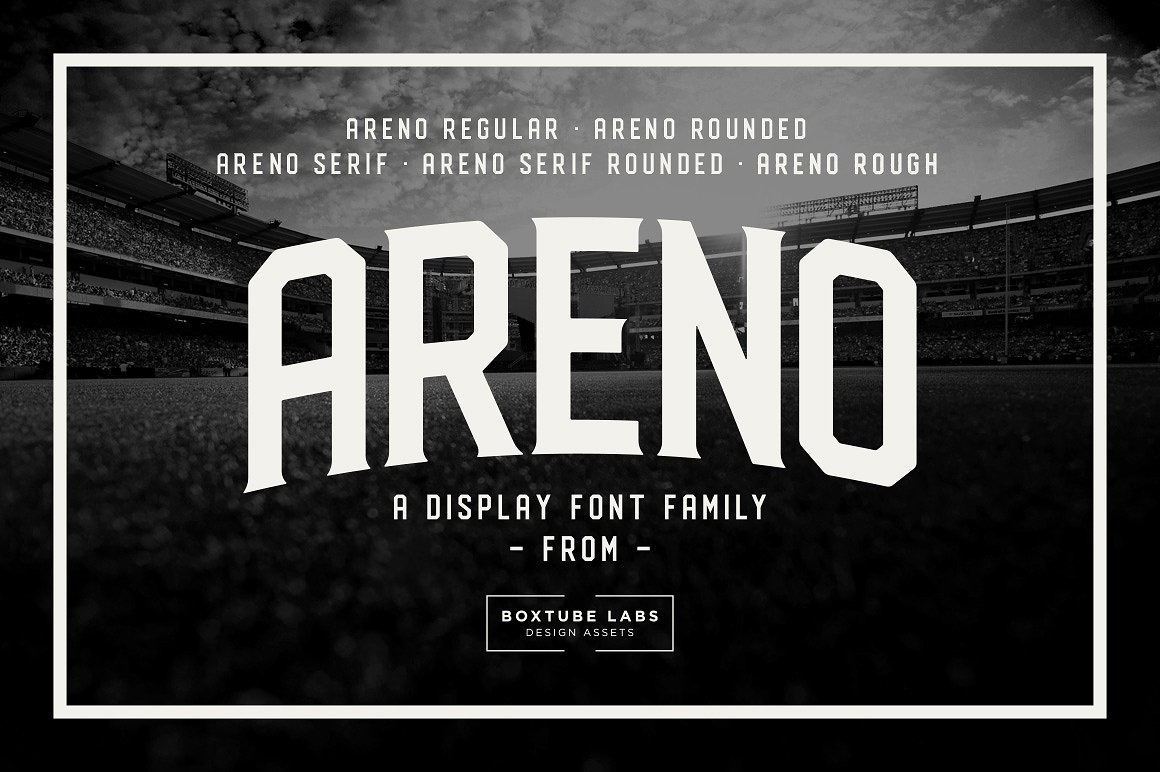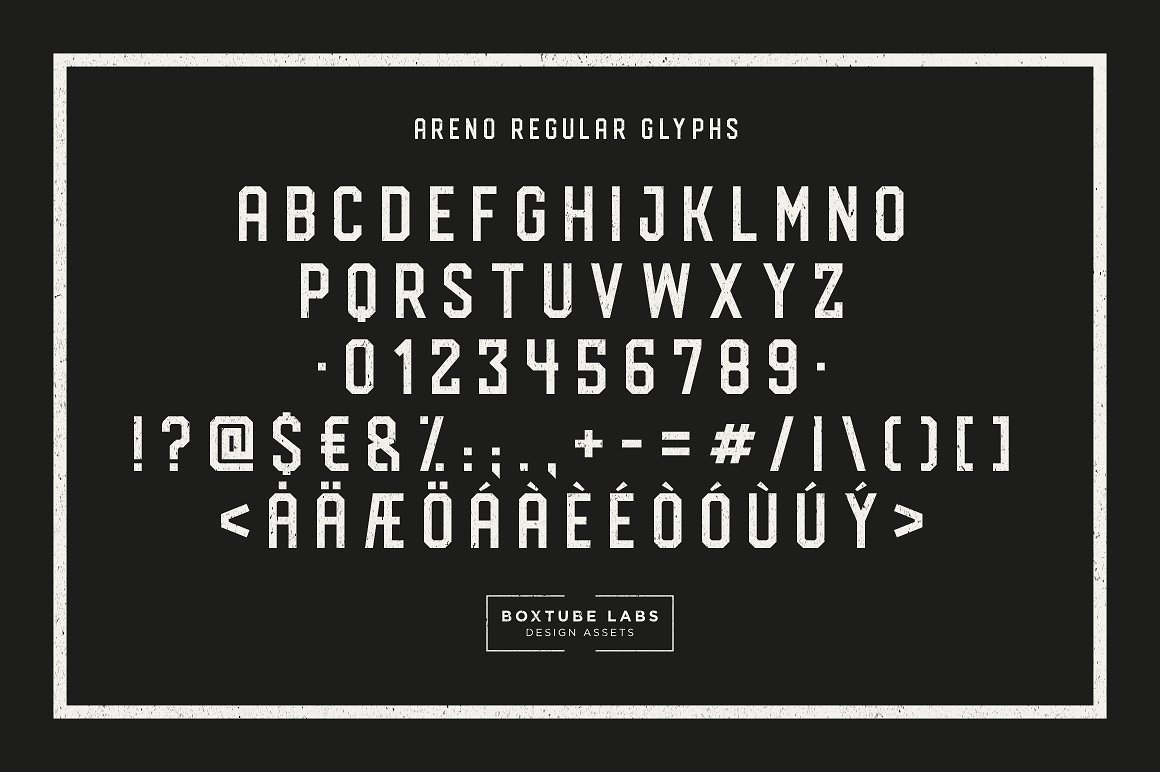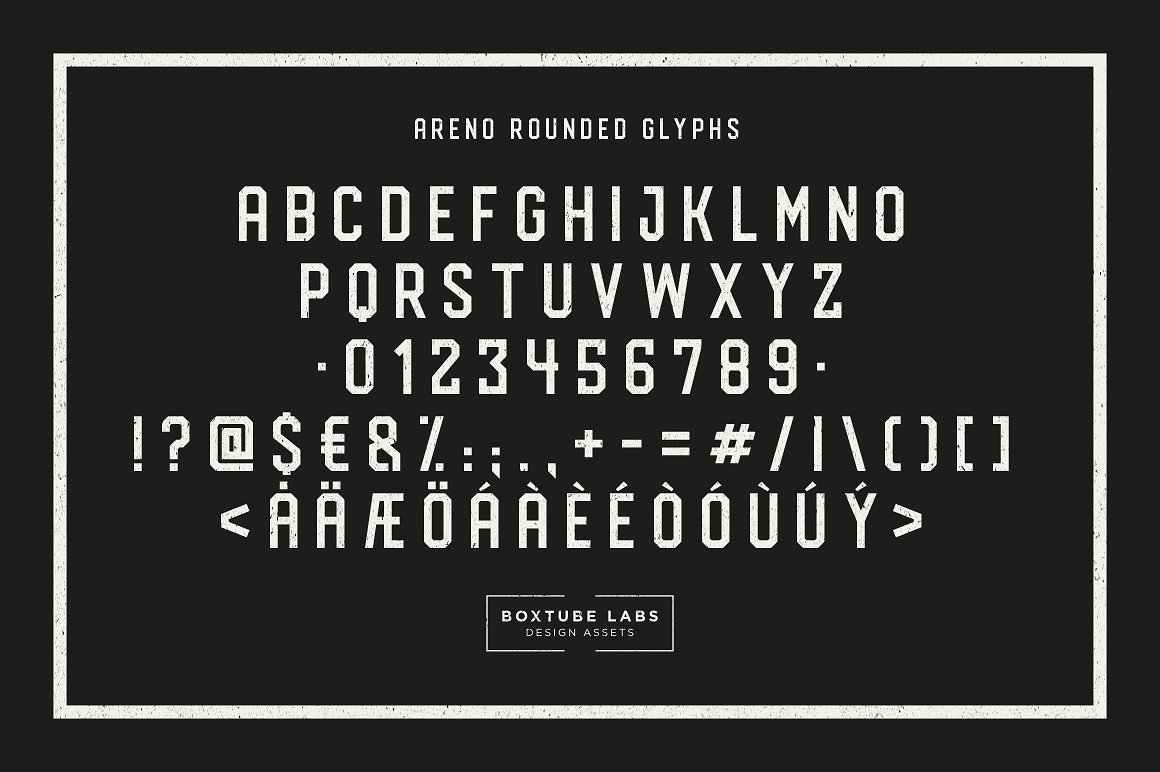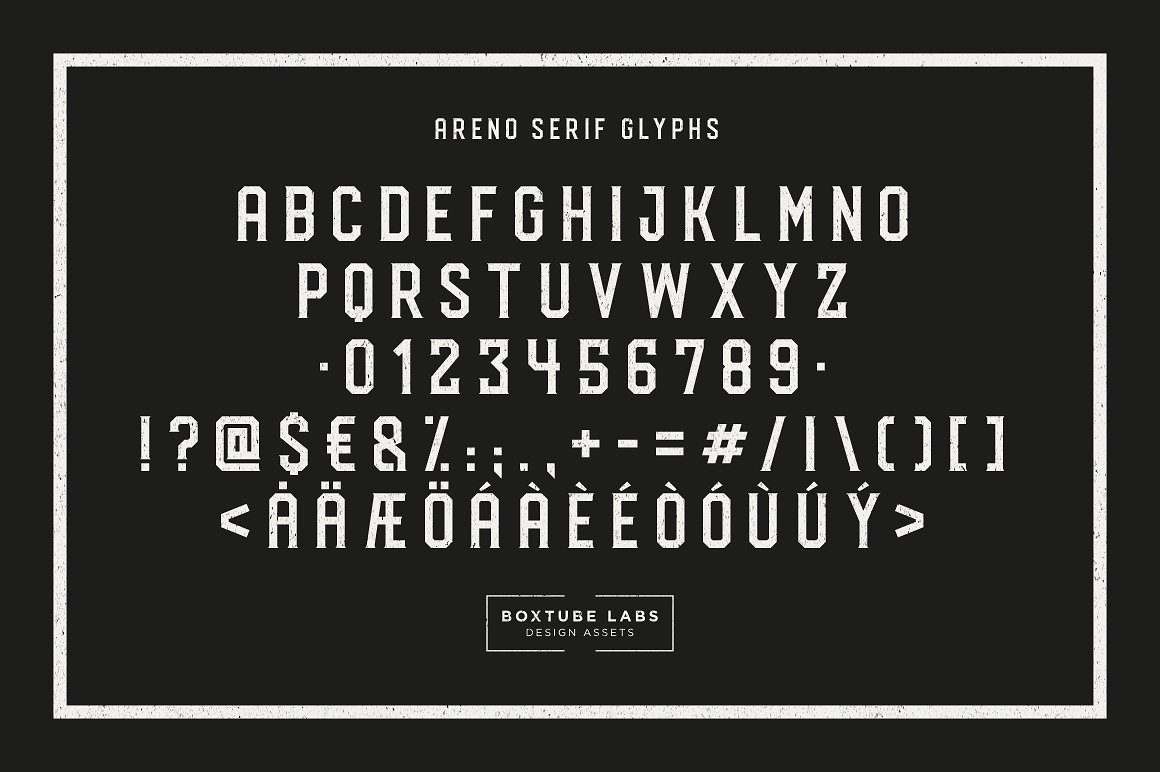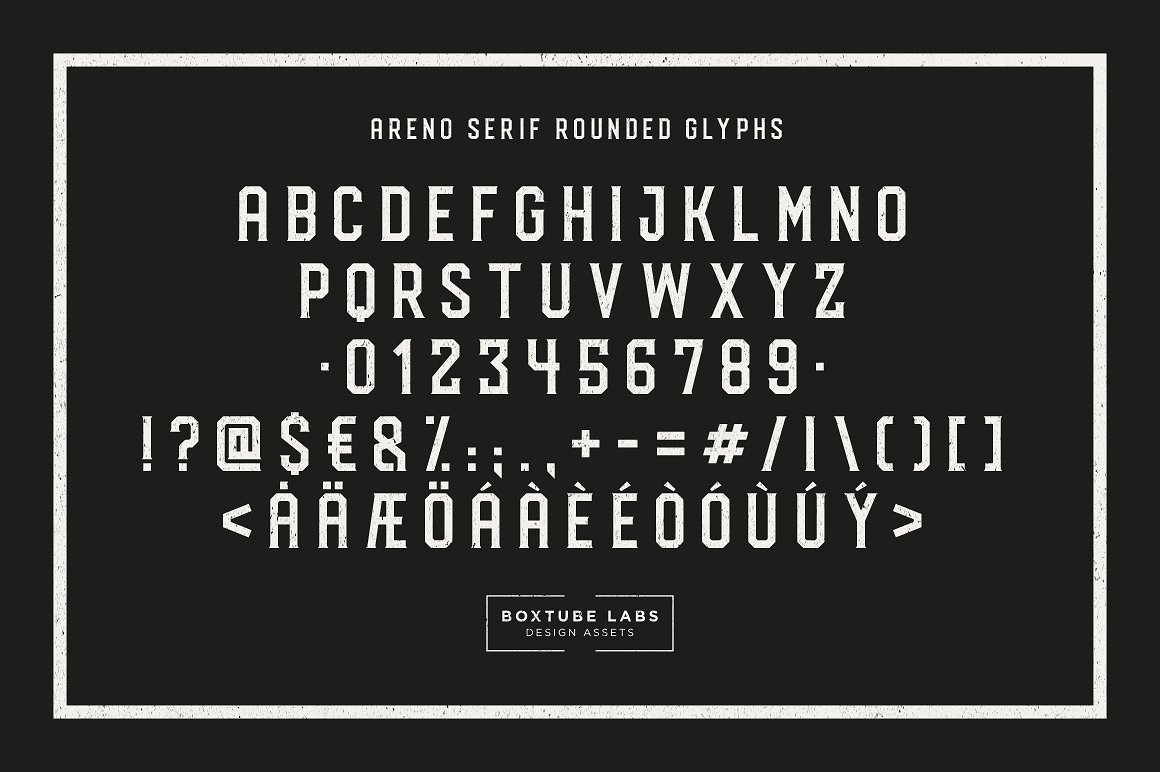
Areno Font Family
The first font family from BoxTube Labs. ARENO – an all caps display font family that comes in 5 styles. Perfect for headlines, logos, posters & apparel design.